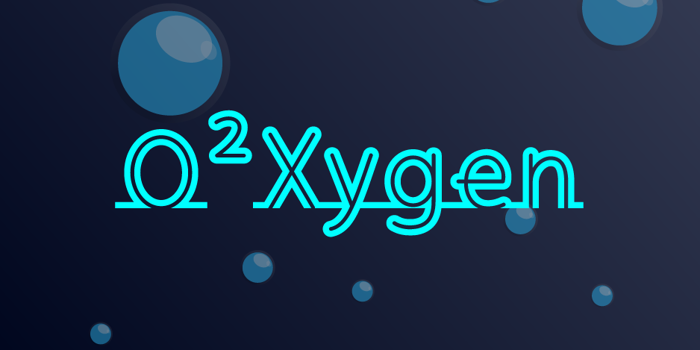
Fortrack Font
Fortrack Font is a Etch A Sketch font and was created on . Since then, it has been downloaded 8,834 times and added to 131 collections. 5 people have liked Fortrack Font and given it a thumbs up.
Inspired by everything that standing on the street. Enjoy!!